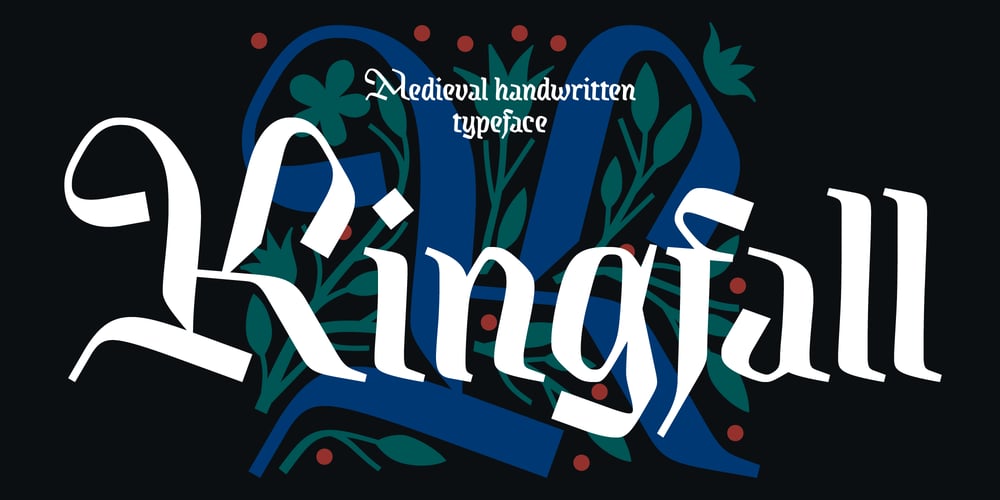
Kingfall Font Family was designed by Michael Rafailyk and published by Michael Rafailyk. Kingfall contains 6 styles and family package options. Kingfall is a handwritten medieval typeface sketched with a flat calligraphic nib. Its design is built on the contrast between small condensed lowercases and large decorative uppercases that can also function as initials. The shape of the letters has numerous rough bends and hard edges, as if the royal blacksmith took a strip of iron and shaped it with a hammer. At the same time, the direction of strokes avoids geometric rectilinearity, thereby adding a human touch to the letterform.Scripts: Latin, Greek, Cyrillic, Georgian, Arabic, HebrewLanguages: 500+